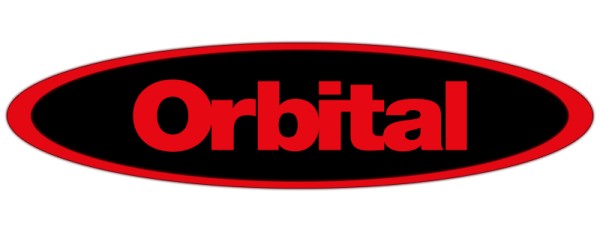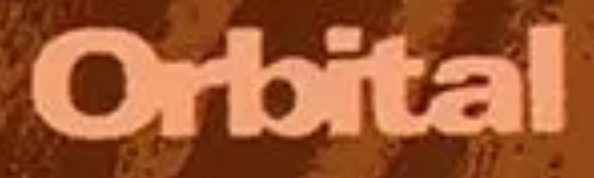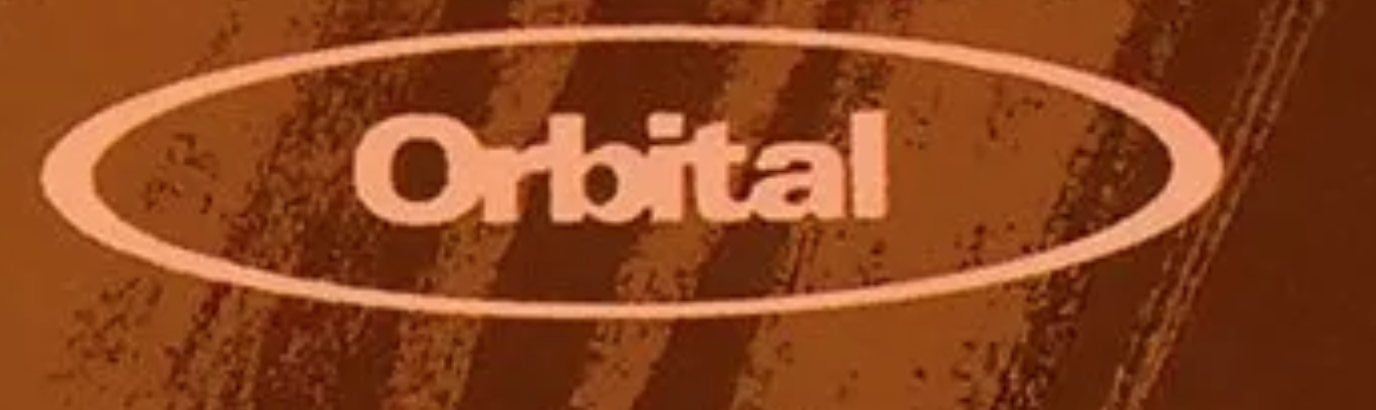
The black extended versions of Univers by Adrian Frutiger seem to be very close (although not identical as it seems. Hard to tell for me with these blurry images)
Here's a larger and more nitid version of the logotype. Apparently, they have a new logotype, according to their web page, but this has always been their more recognizable logo.
Oh, thanks. This one looks like Neue Helvetica Heavy  ;^) (with tight tracking and a little squashing … )